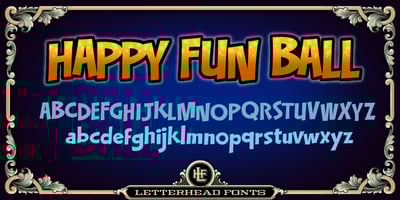
LHF Happy Fun Ball
LHF Happy Fun Ball font
LHF Happy Fun Ball Font Family was designed by Chuck Davis and published by Letterhead Fonts. LHF Happy Fun Ball contains 2 styles and family package options. Two very happy fun fonts named after the famous SNL parody commercial. Lots of personality and bounce. Perfect for lighthearted applications or designs that need to appeal to kids.